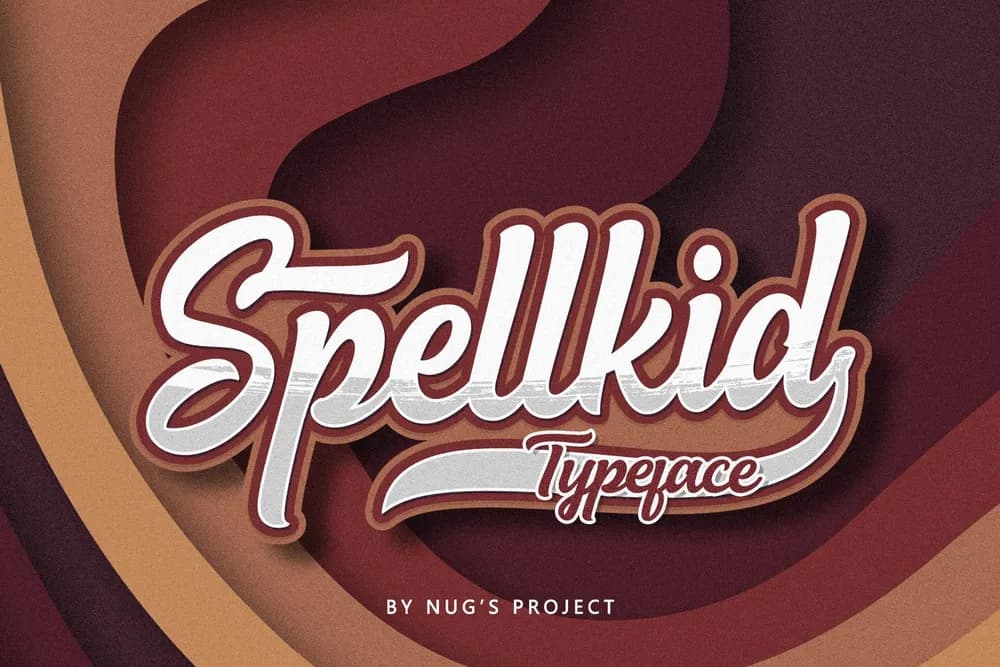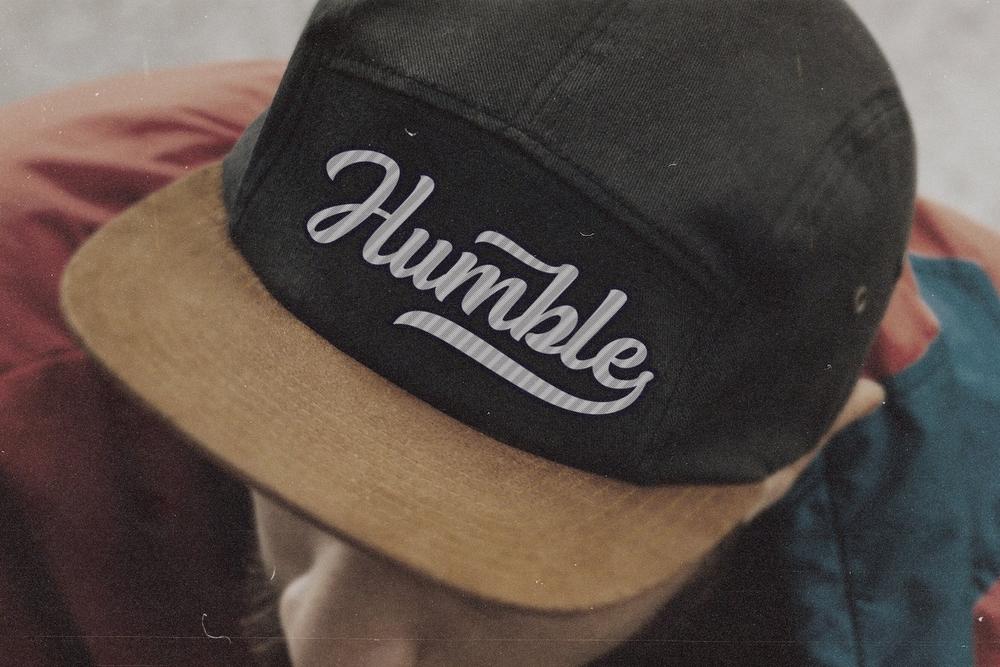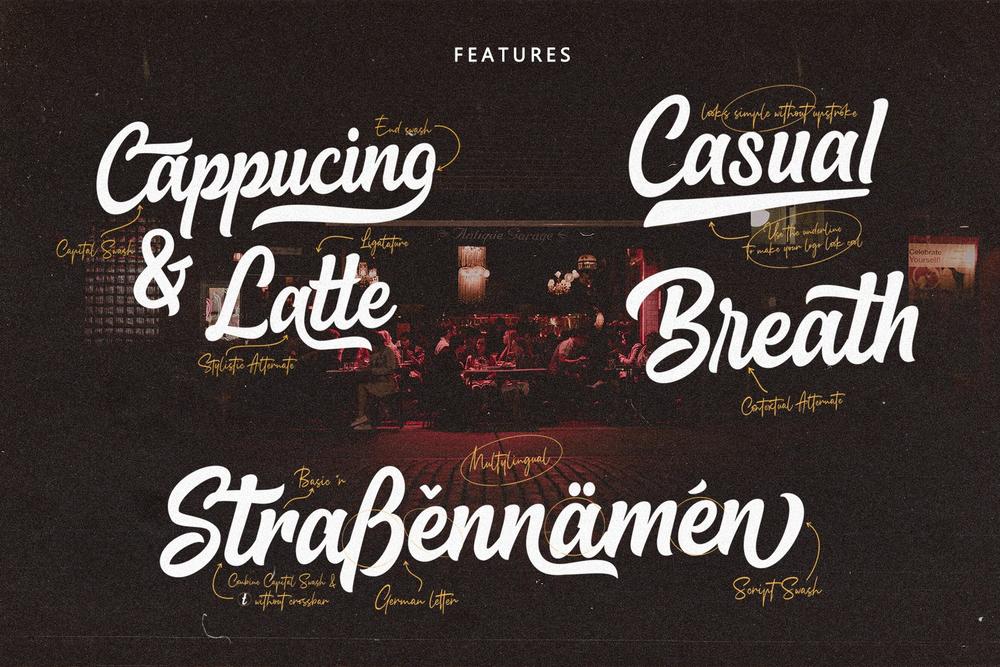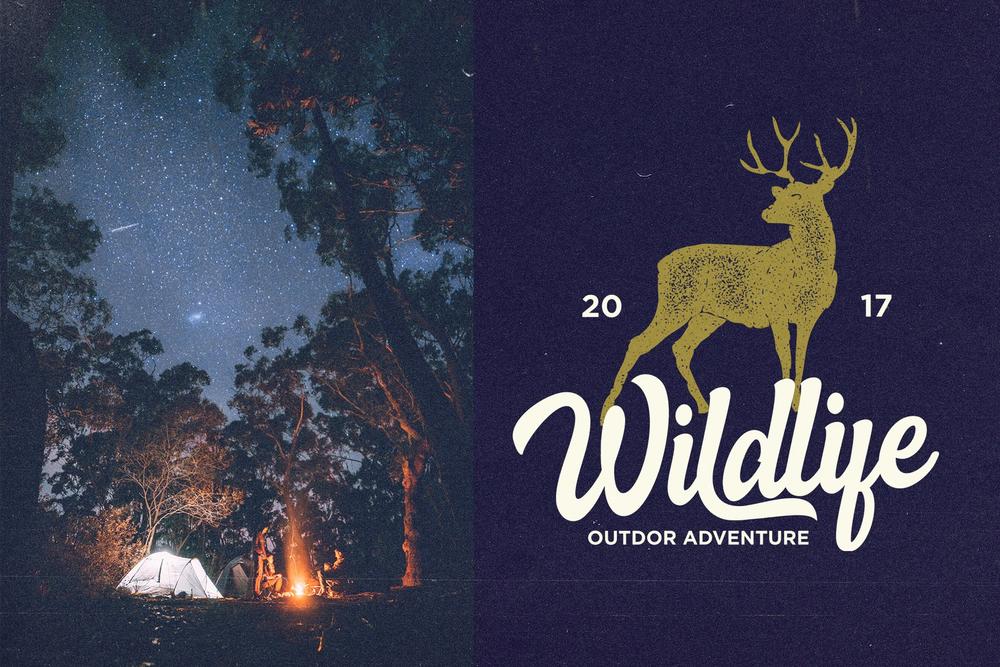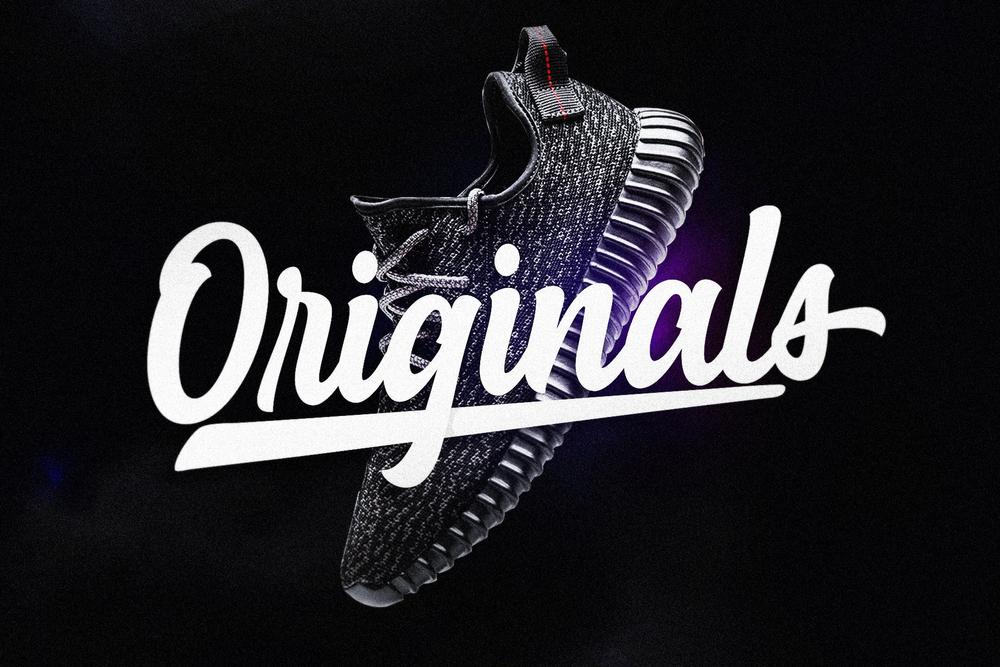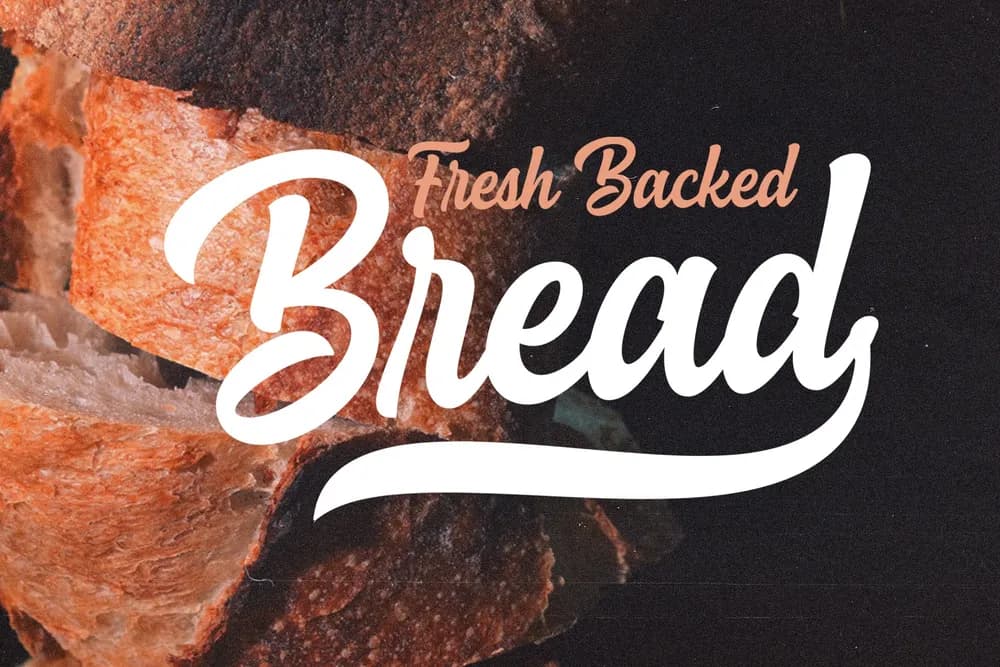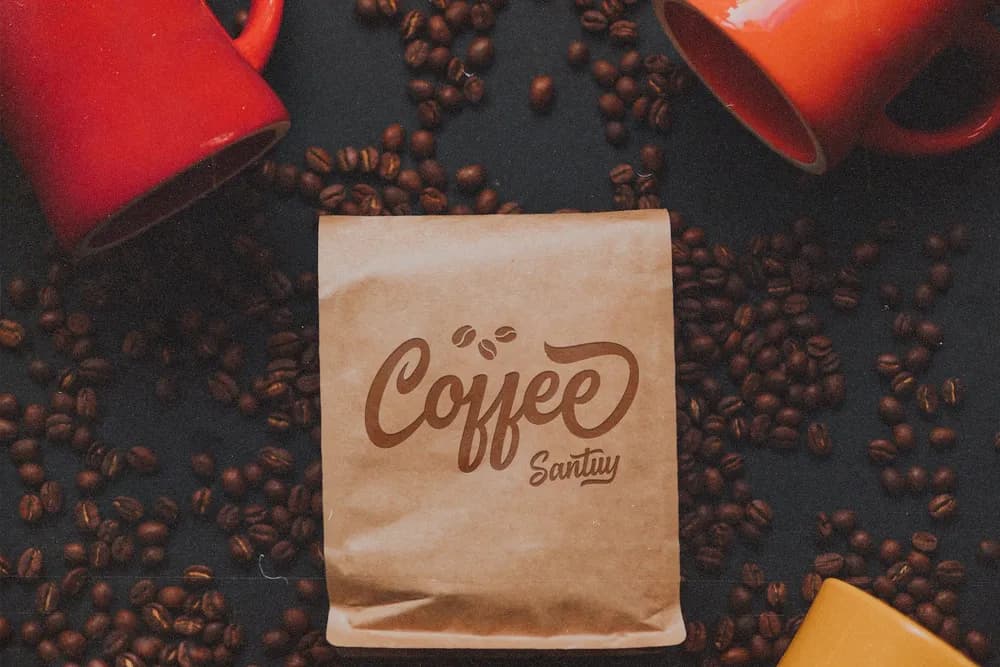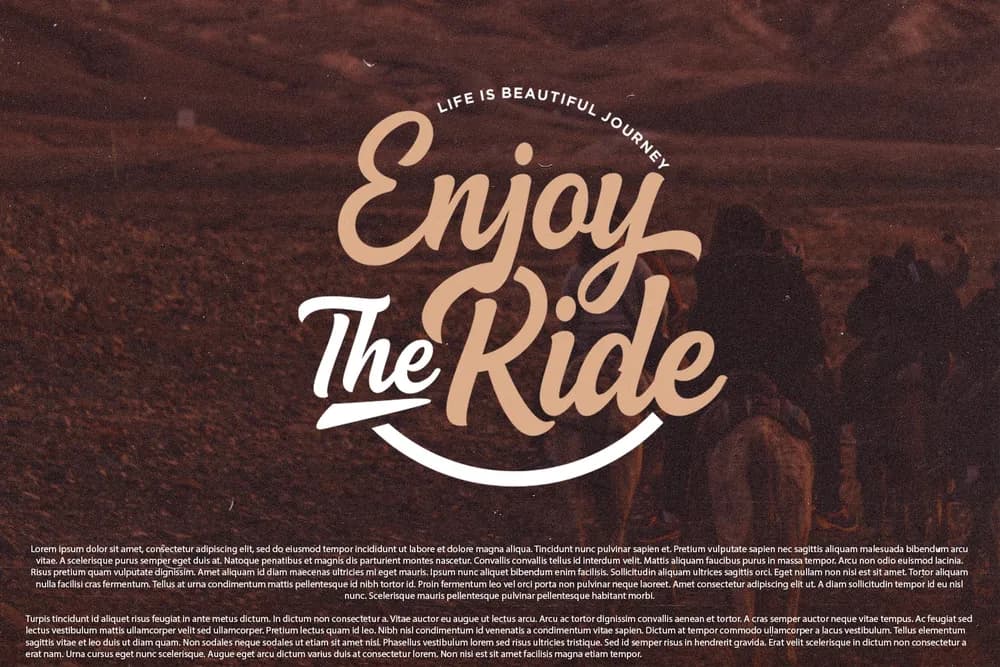
Spellkid ia a bold script, with a clean lines and smooth curve combined with the beautiful features! Files Include : Spellkid.otf & ttf Spellkid Outline .otf & ttf Spellkid Swash otf & ttf Features Basic Latin A-Z and a-z Numbers Symbols Opentype Features Standart Ligature PUA Encode Multilanguage Support How to get access alternate glyphs from open type fonts check this link : http://adobe.ly/1m1fn4Y